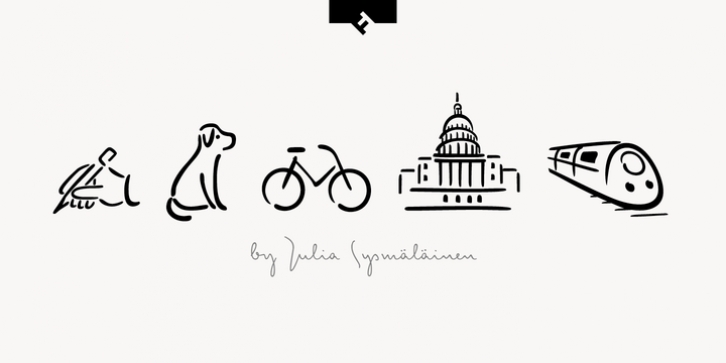
Finnish type designer Julia Sysmäläinen created this pi and symbols and script FontFont in 2009.
The font is ideally suited for advertising and packaging, informal visual identities, popular events as well as software and gaming.
The FF Mister K Dingbats character set contains almost 600 layered icons related to different topics.
This FontFont is a member of the FF Mister K super family, which also includes FF Mister K and FF Mister K Informal.